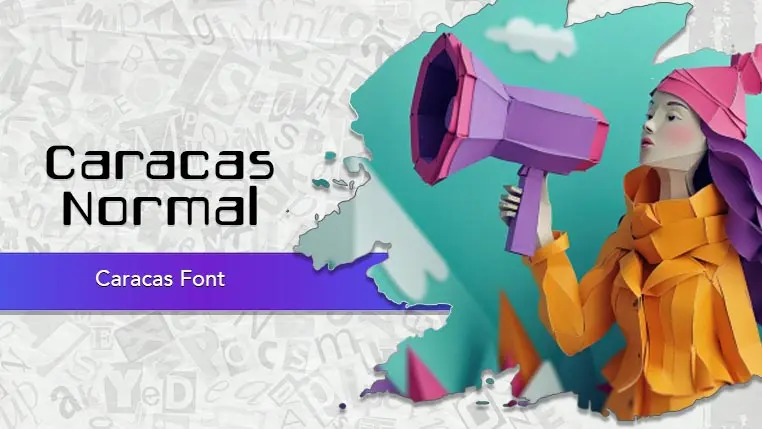
The Caracas font family may be ideal for you if you enjoy working on an artistic design project. The lively, expressive look of this typeface, which was created by Jorge Algarin, makes it ideal for Headlines and Titles, Digital Interfaces (UI/UX) and Tech and Modern Themes. Its bold presence ensures it stands out well in larger formats for events, promotions, or informational posters. and other light-hearted visual projects.
Normal are the one primary font styles of the Caracas font family. You may build dynamic, visually appealing text layouts with the distinct flair that each style offers. With crisp, readable lines and a relaxed tone.